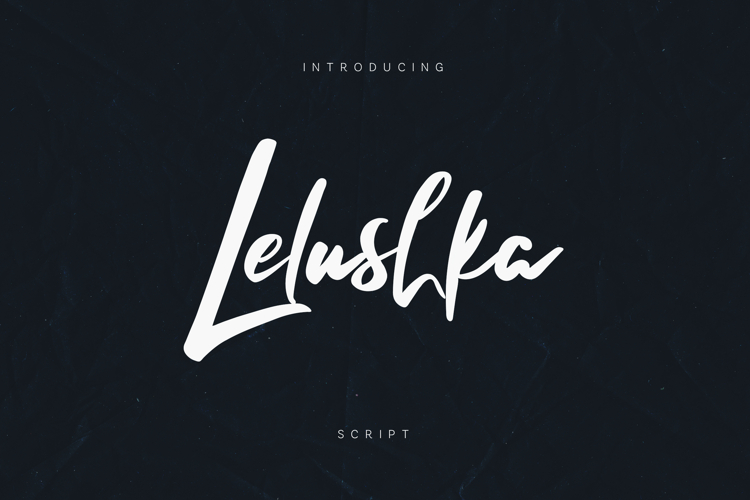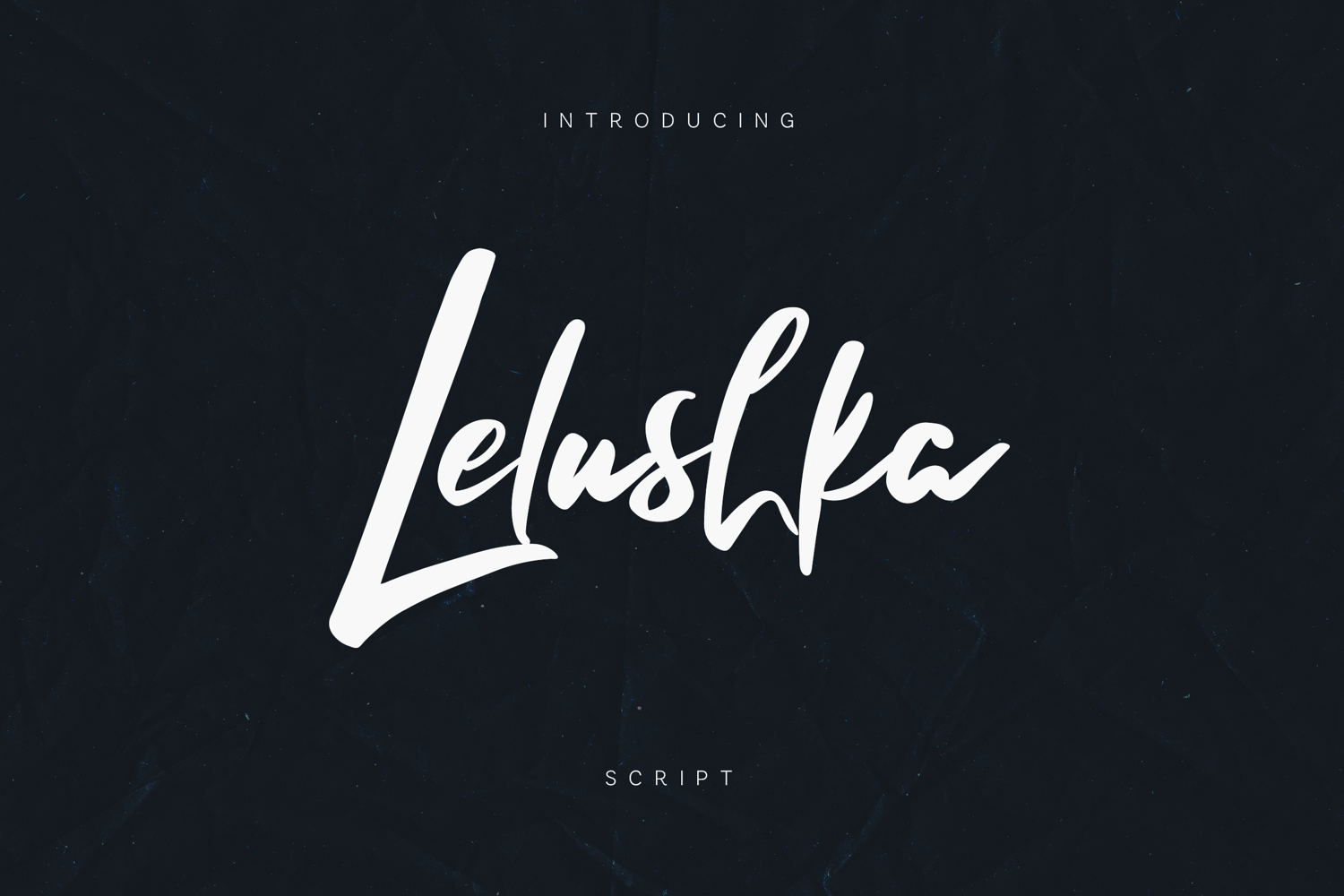
Lelushka Modern Handwritten Script Font
Lelushka is a flowing handwritten script typeface designed to capture the natural rhythm and movement of real handwriting. The letters feature smooth curves, expressive strokes, and organic connections that create a warm and dynamic typographic style.
The design focuses on fluid motion and natural letter balance. Each character is shaped to maintain consistent rhythm across words while preserving the spontaneous feel of hand-drawn writing. Subtle variations in stroke thickness and angle give the font a lively appearance that feels authentic and human.
Lelushka is ideal for projects where typography needs to feel friendly, expressive, and visually engaging. The flowing structure allows words to connect beautifully, making the font particularly effective for titles, logos, creative layouts, and modern visual compositions.
The script style works well across many design applications such as branding projects, social media graphics, greeting cards, quotes, posters, invitations, packaging, and contemporary digital designs. Its handwritten personality helps typography stand out while maintaining a natural and elegant appearance.
The typeface includes uppercase and lowercase characters, numbers, punctuation, symbols, and extended multilingual characters, allowing designers to create consistent typography across multiple languages and international design projects.
With its fluid strokes and expressive handwritten style, Lelushka adds warmth, personality, and movement to modern typography projects.